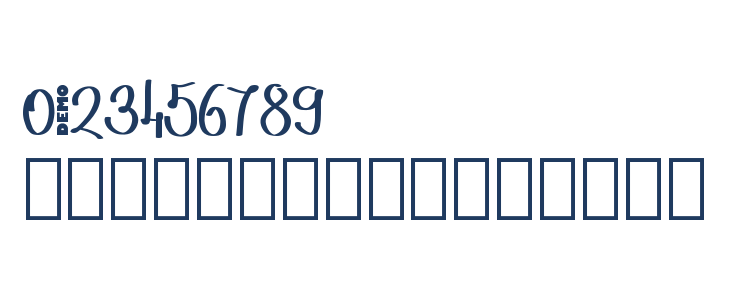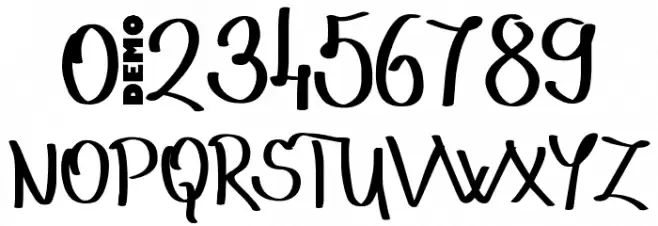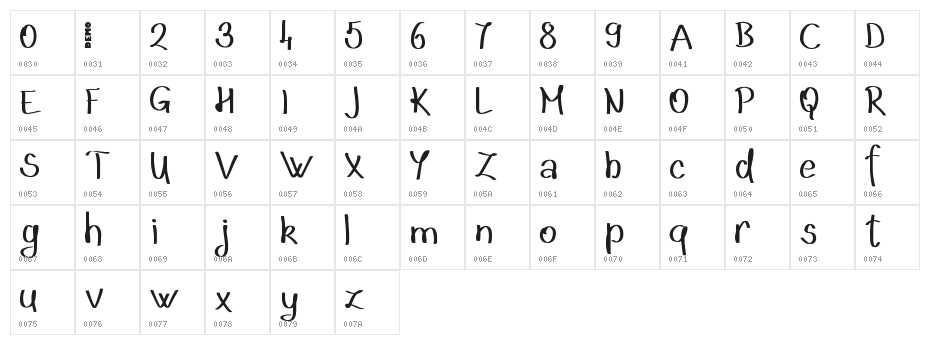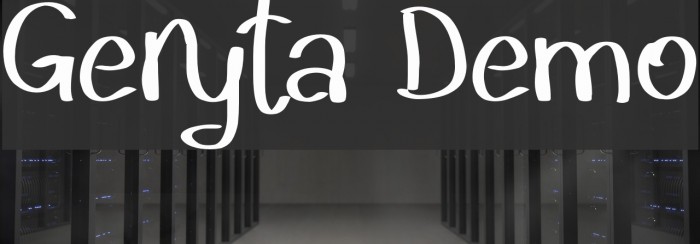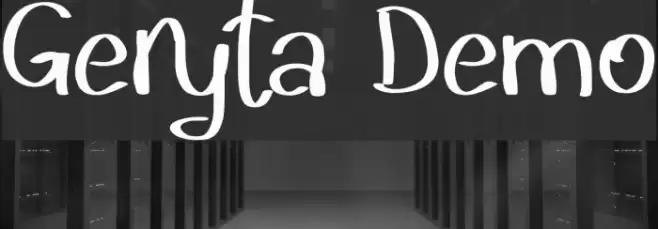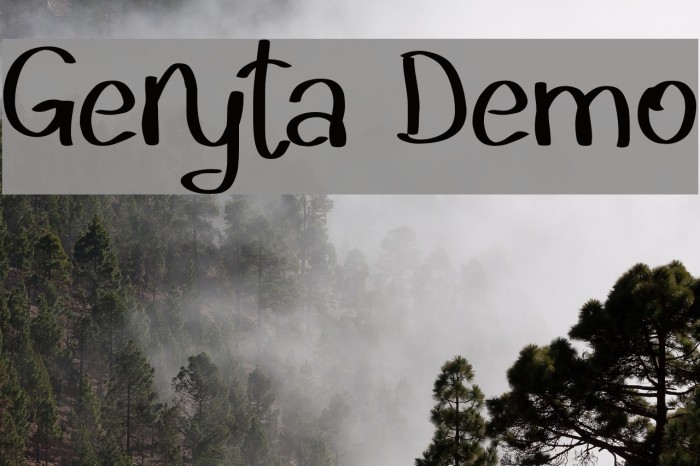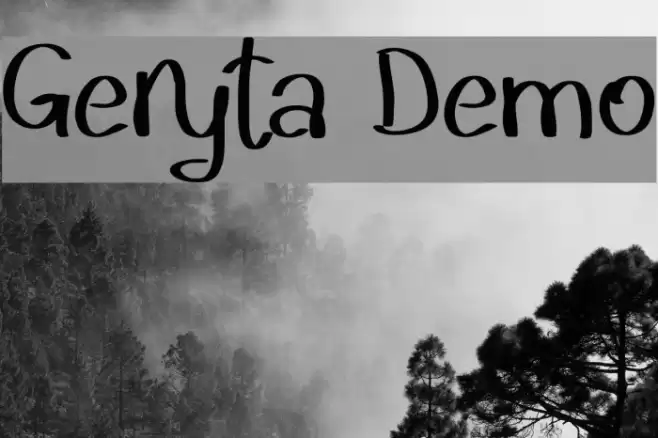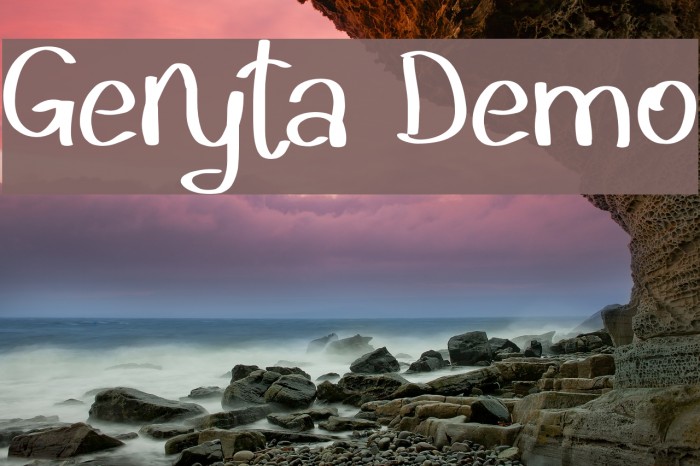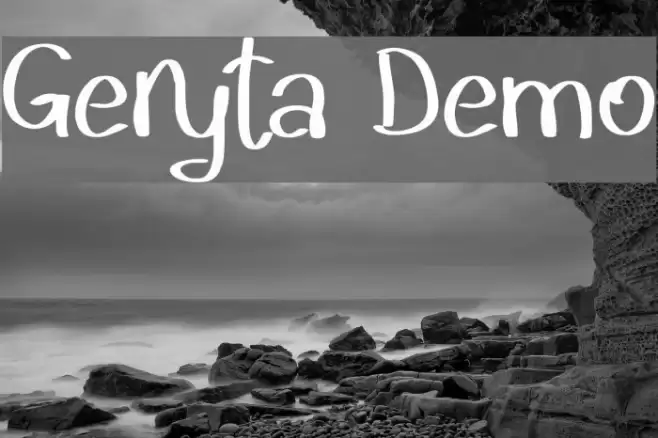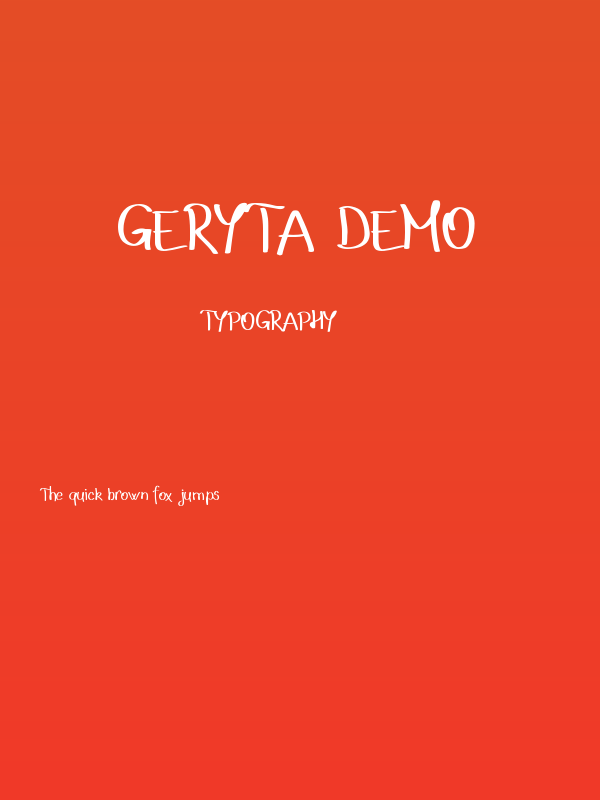
Geryta Demo Font
Geryta Demo Description
This font features a playful and artistic style with a handwritten appearance. The characters are slightly irregular, giving it a whimsical and casual feel. The strokes are bold and have a medium contrast, with some letters featuring unique flourishes and curves that add to its charm. The uppercase letters are tall and slightly narrow, while the lowercase letters maintain a consistent height, creating a harmonious balance. The numbers are bold and rounded, complementing the overall style. Special characters are creatively designed, maintaining the font's playful aesthetic.
| Proposed Projects | Ideal for creative projects such as greeting cards, children's books, playful branding, and artistic posters. |